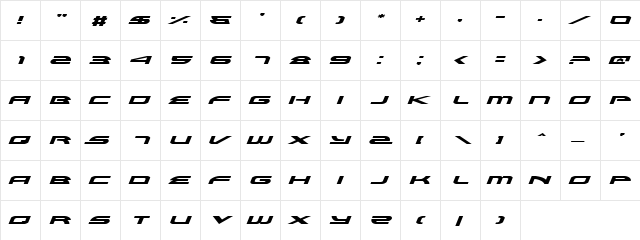
Alexis Expanded Italic Expanded Italic
Design Context for Alexis Expanded Italic Typeface
Alexis Expanded Italic offers clean, dependable letterforms without strong stylistic allegiance, making it a practical choice for designers who need flexibility. The slanted form adds forward momentum and visual energy.
Pro Tip: Try Alexis Expanded Italic for annotation and caption copy alongside an upright companion — the contrast in angle creates a dynamic but ordered typographic system.